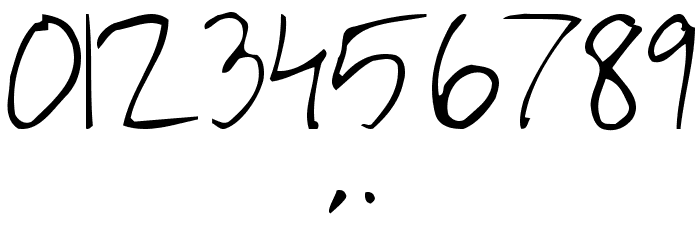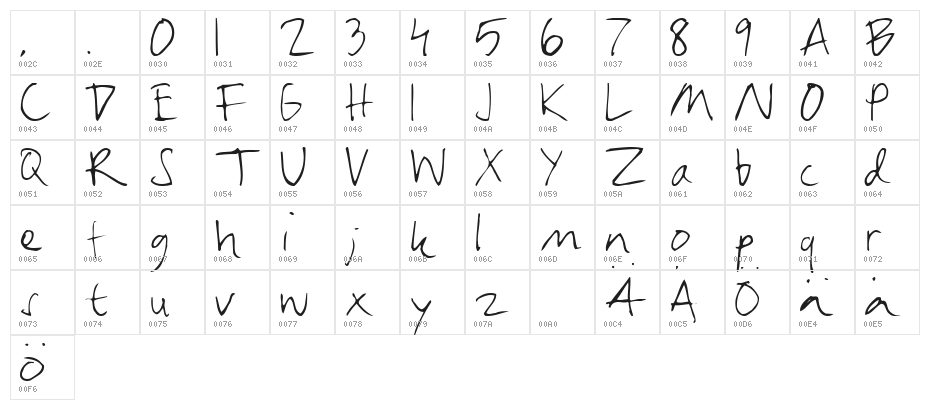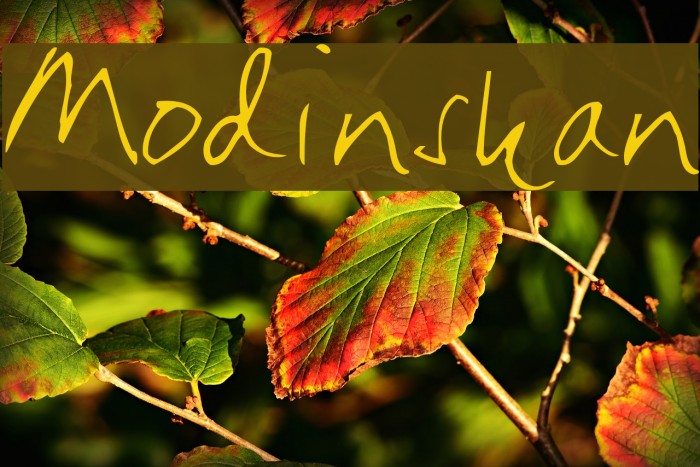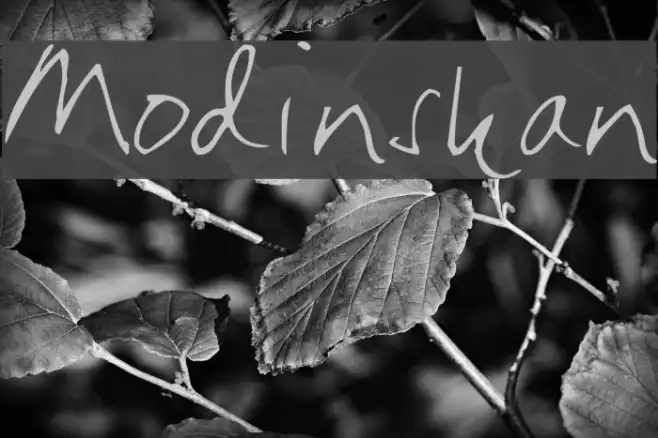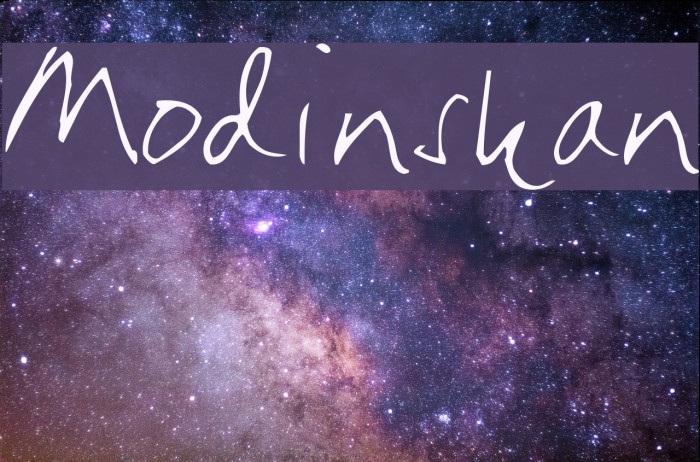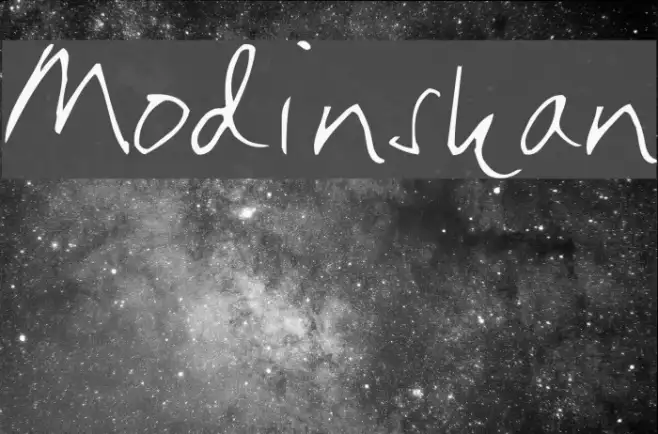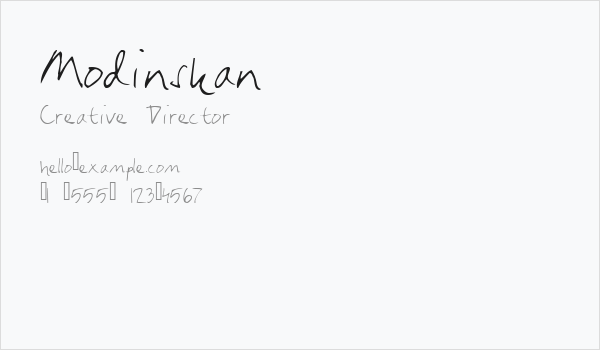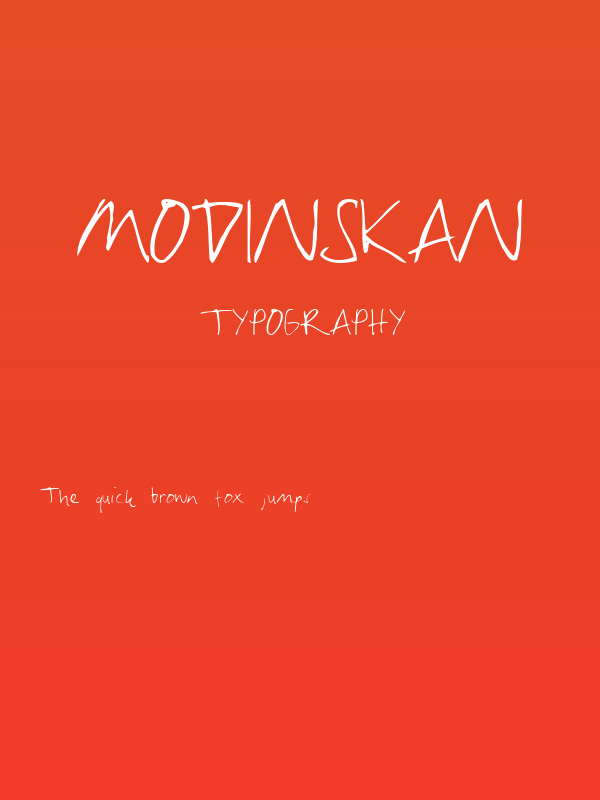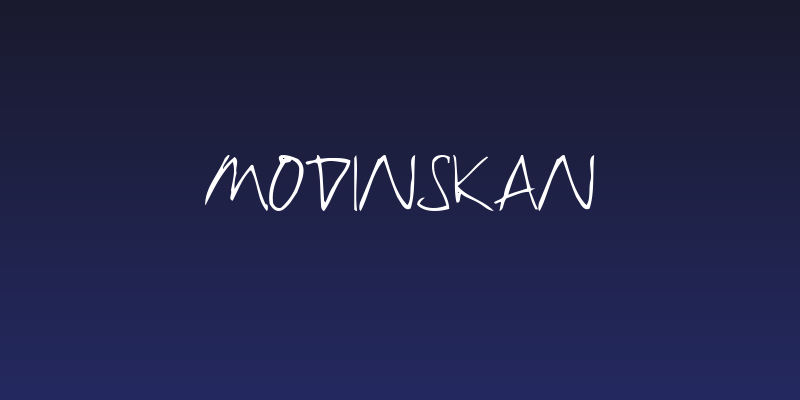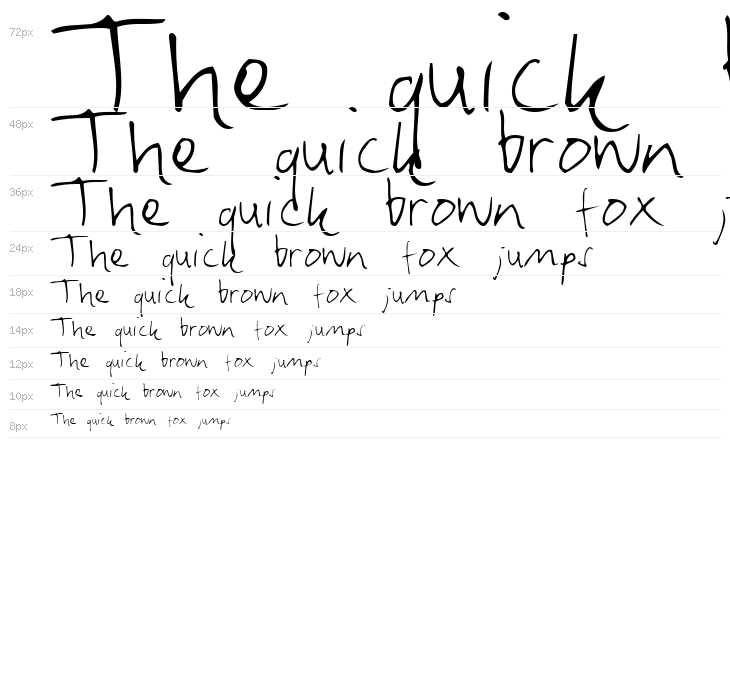
Modinskan Font
Modinskan Description
This font exudes a casual, handwritten style with a playful and informal appearance. The letters are slightly irregular, mimicking the natural flow of handwriting. The uppercase and lowercase characters maintain a consistent style, with smooth curves and occasional sharp angles, adding to its dynamic feel. The numbers are bold and clear, ensuring readability. Special characters are included, maintaining the same handwritten aesthetic. This font is perfect for projects that require a personal touch, such as invitations, greeting cards, or creative branding.
| Use Case | Headlines, Creative projects, Personal branding |
| Proposed Projects | Ideal for invitations, greeting cards, personal branding, and creative projects. |